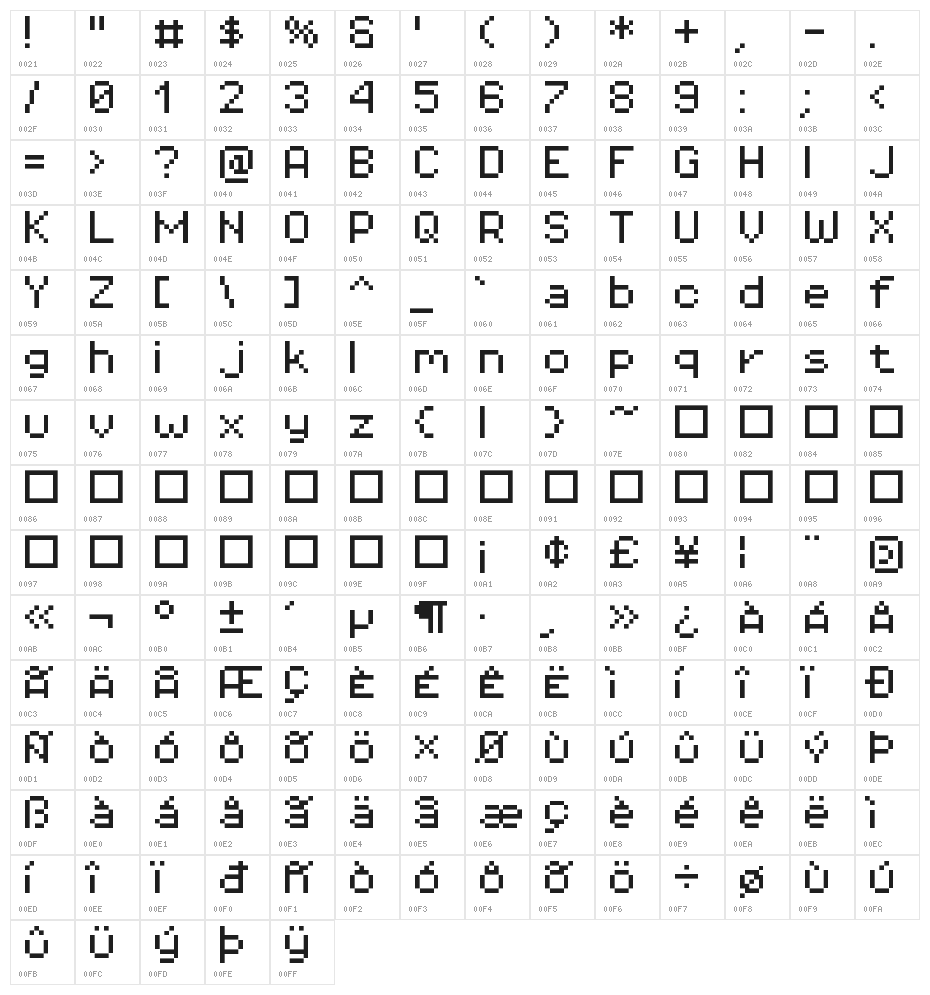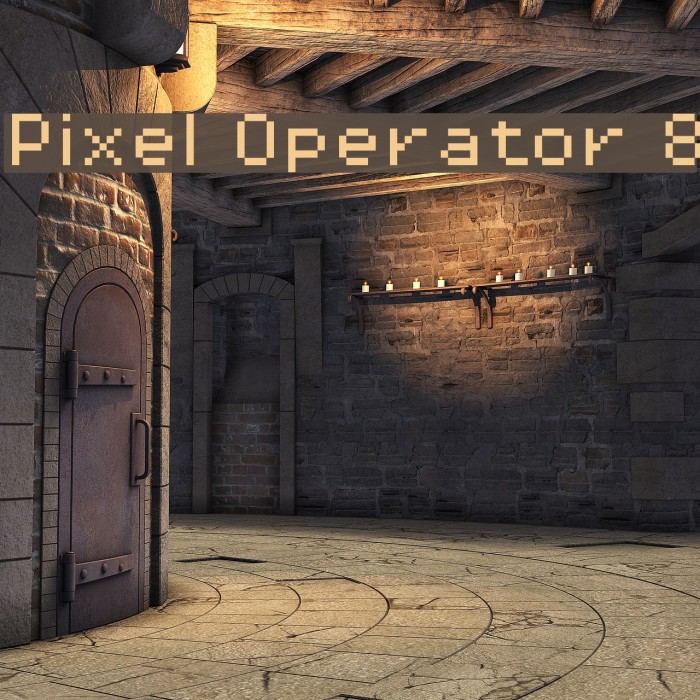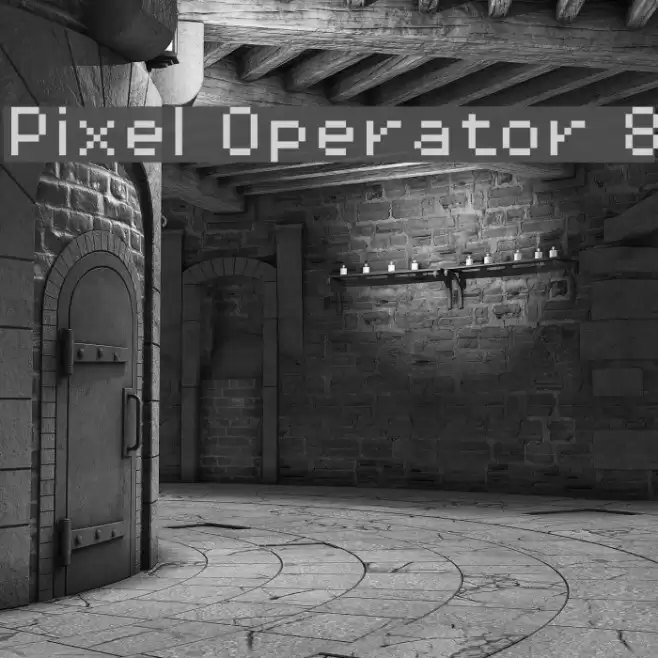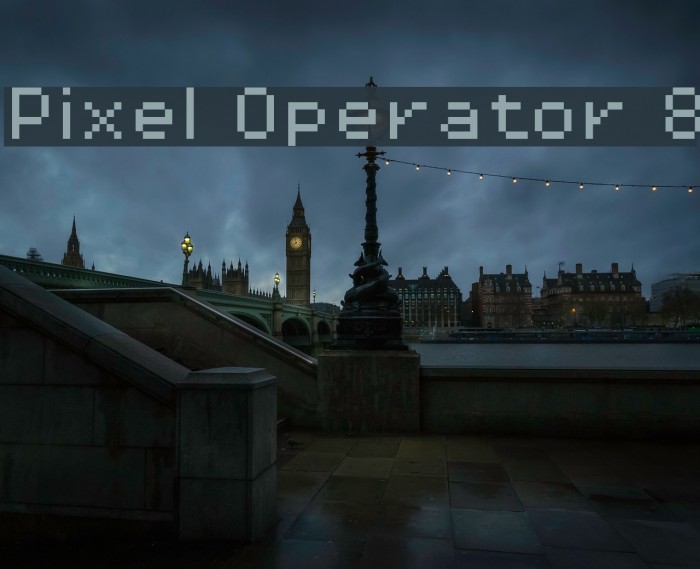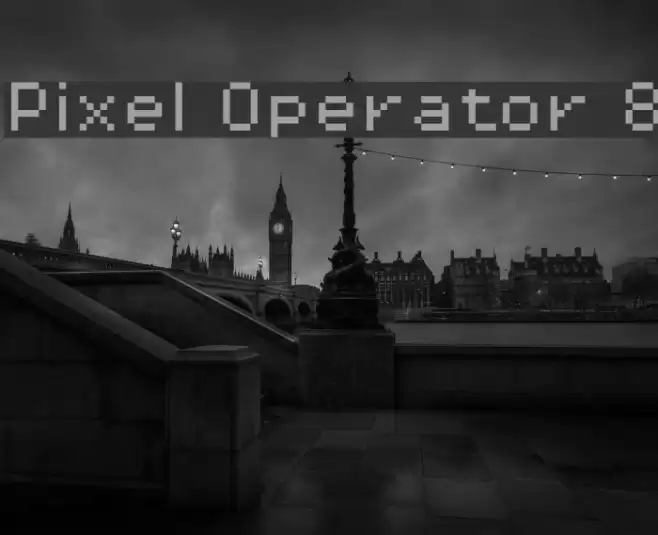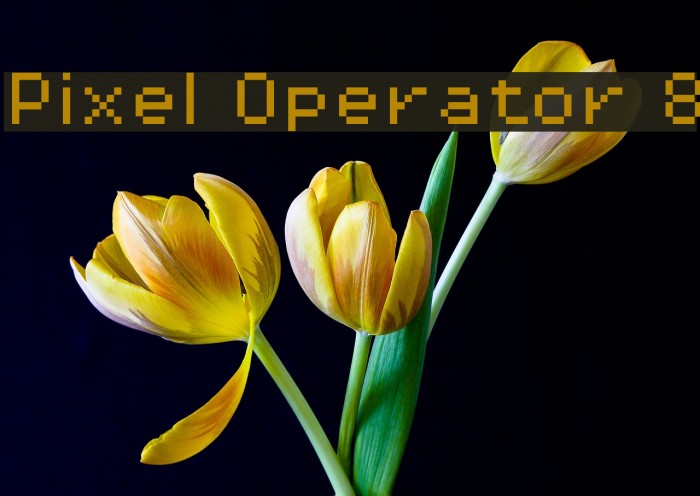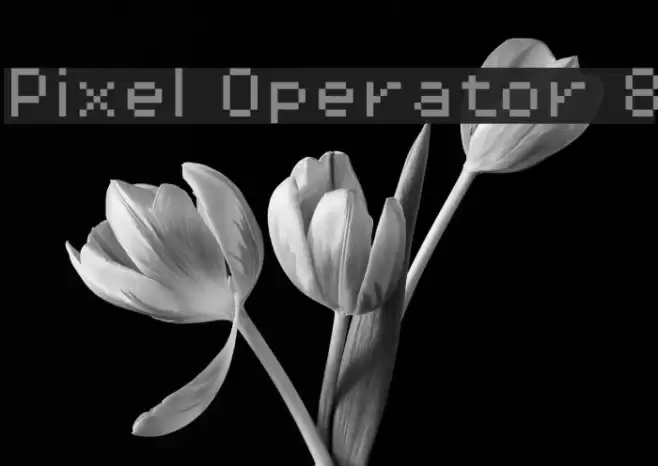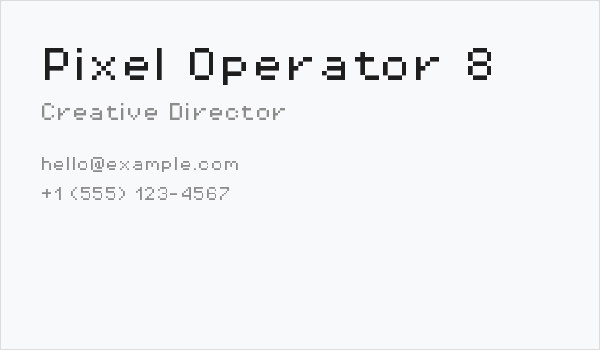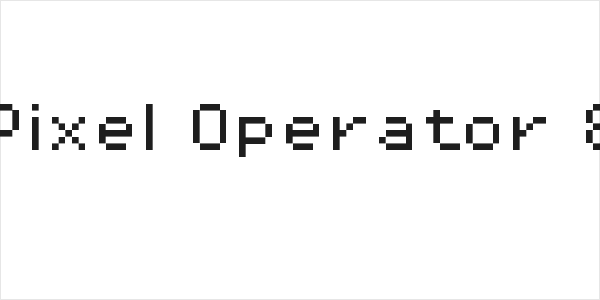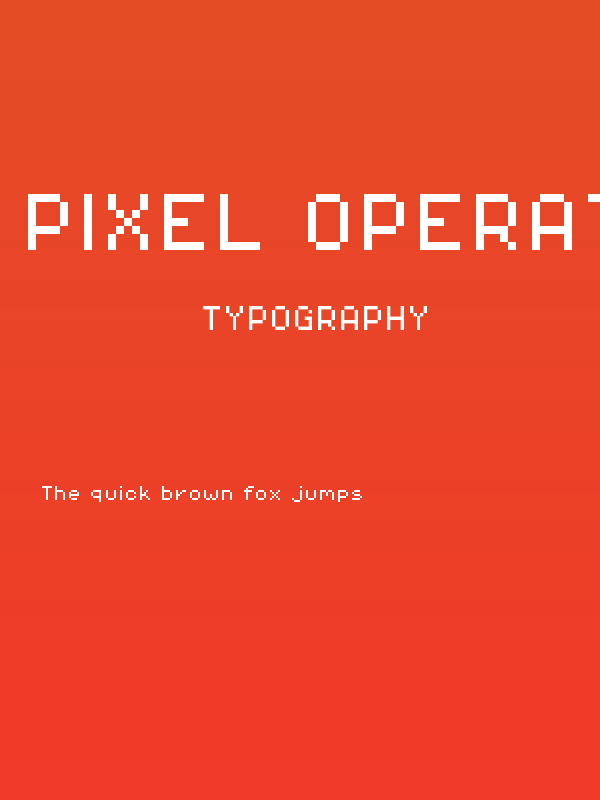
Pixel Operator 8 Font
Pixel Operator 8 Description
This font is a pixelated, monospaced typeface that embodies a retro, digital aesthetic reminiscent of early computer screens and video games. Each character is constructed with a grid-like precision, emphasizing a blocky, geometric form. The uniformity in character width and height contributes to its distinct, mechanical appearance. Despite its rigid structure, the font maintains legibility and clarity, making it suitable for digital interfaces and nostalgic design projects. The characters are evenly spaced, enhancing readability and maintaining a consistent visual rhythm across text. Its simplistic and straightforward design evokes a sense of nostalgia, ideal for projects aiming to capture a vintage digital feel.
| Use Case | Digital interfaces, Retro designs, Coding |
| Proposed Projects | Ideal for video game design, digital art projects, retro-themed websites, and coding interfaces. |